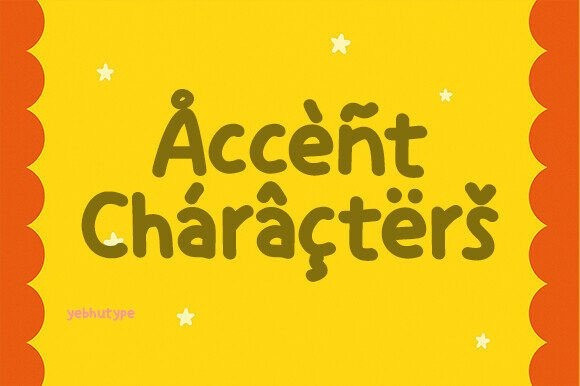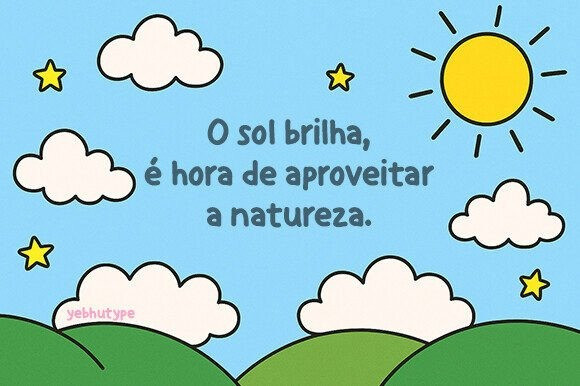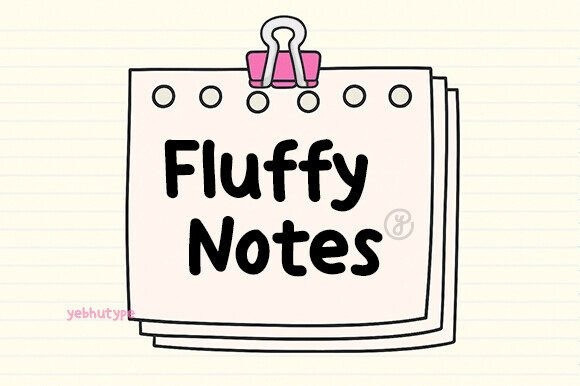
Fluffy Notes Font
Fluffy Notes Font, a delicate and dreamy handwritten typeface that floats onto the page like a gentle breeze through your favorite notebook. Inspired by soft strokes, cozy scribbles, and the warmth of personal expression, Fluffy Notes brings a touch of tenderness to every design. With its airy curves, light texture, and graceful rhythm, this font isn’t just a typeface—it’s an embrace in typography form.